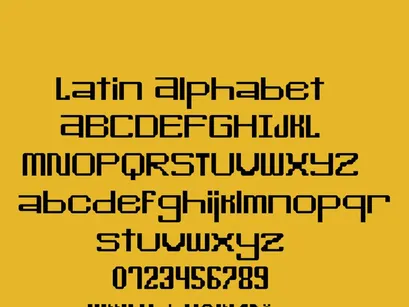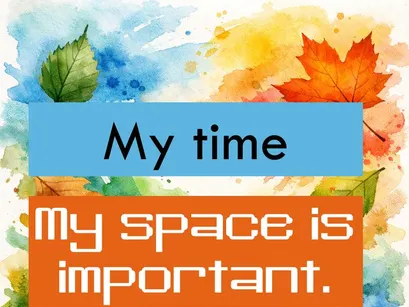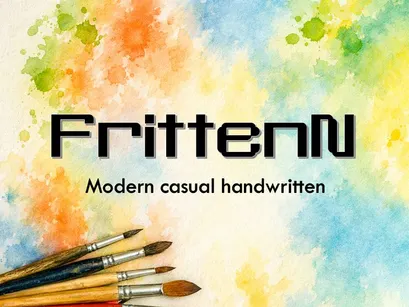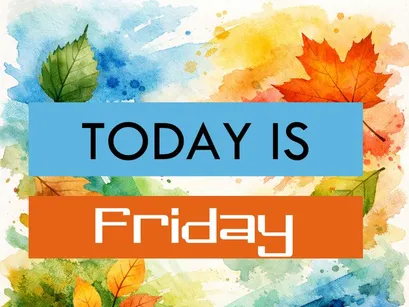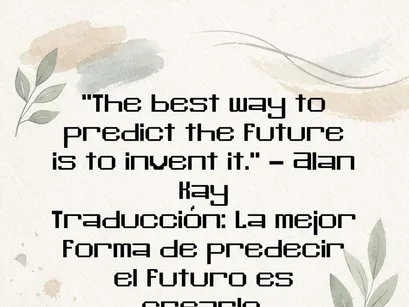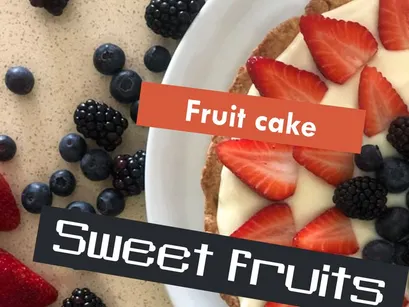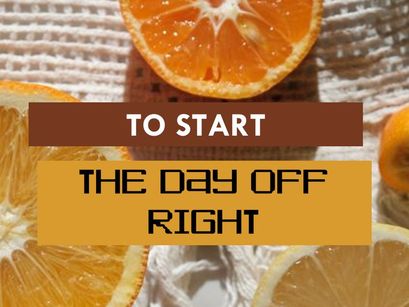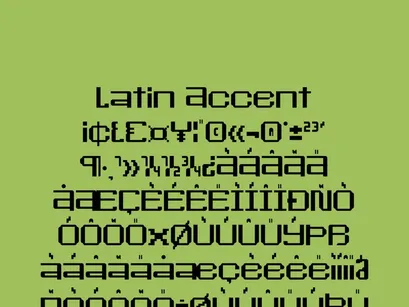
FrittenN is a modern, casual font with a handcrafted style that conveys dynamism and clarity.
Designed in FontStruct, it combines geometric shapes with expressive strokes, striking a balance between the digital and the handmade.
It is perfect for headlines, inspirational quotes, artistic branding, planners, and creative projects seeking a contemporary, emotive aesthetic.
It includes a full set of Latin characters and accents for international compatibility.